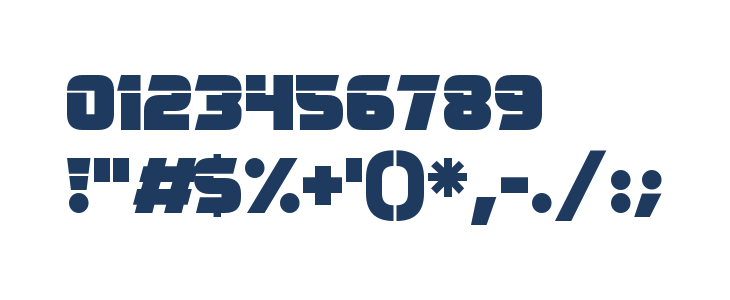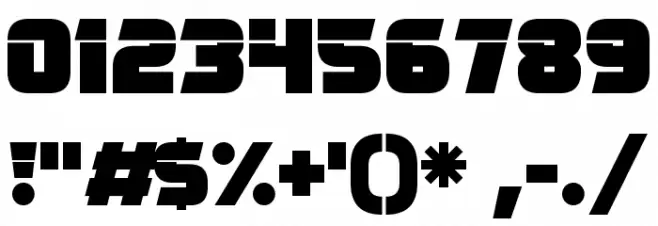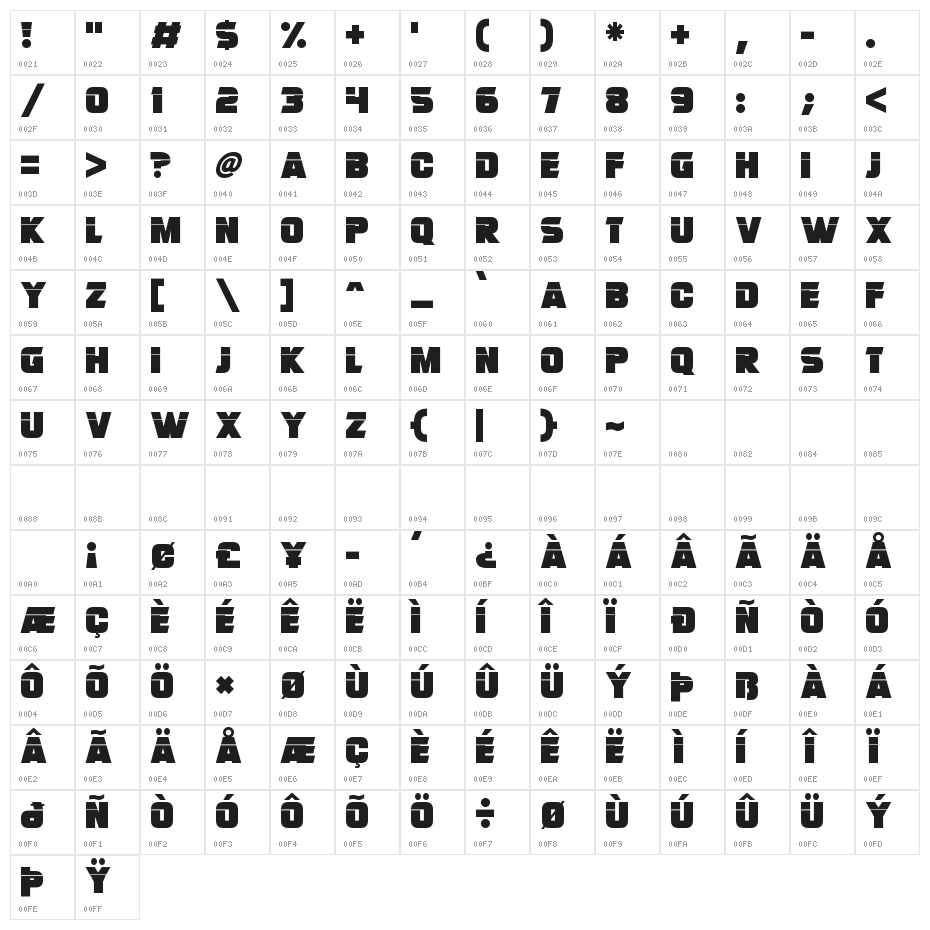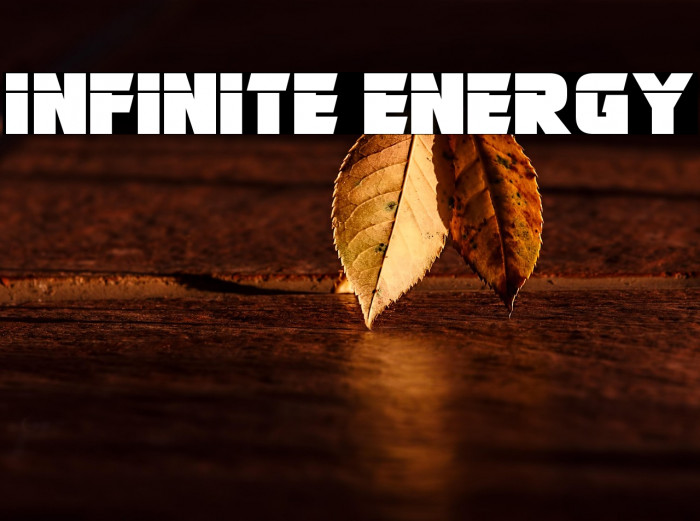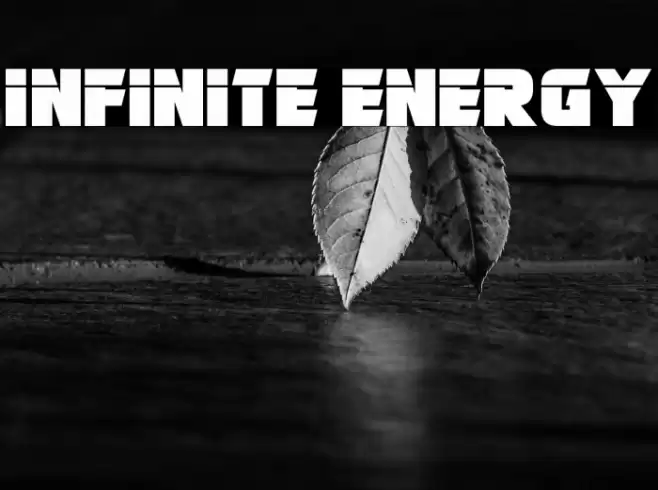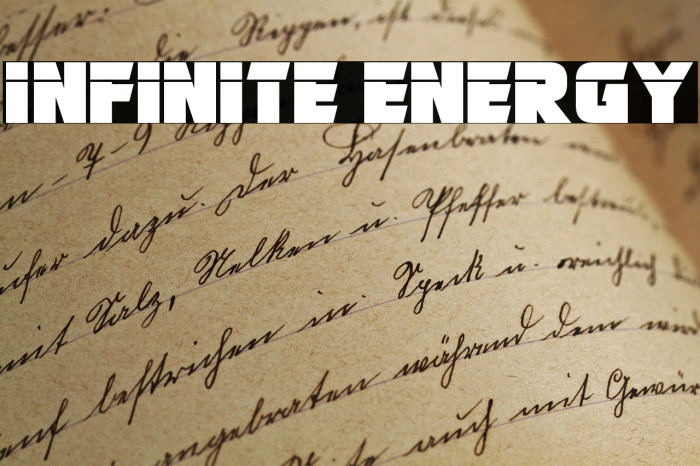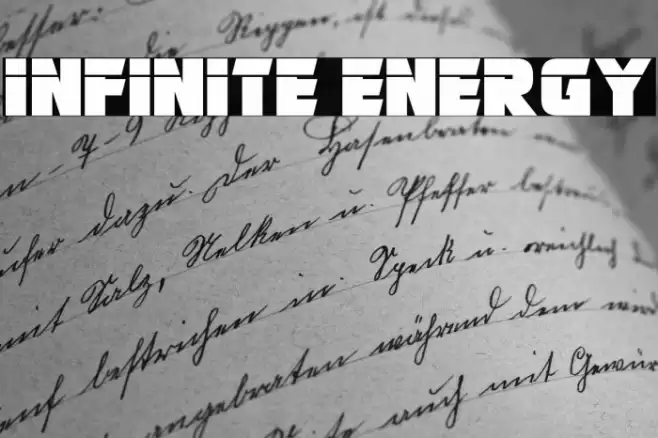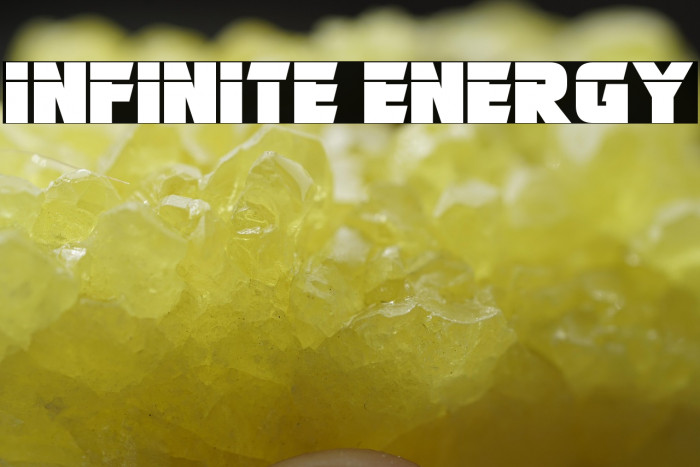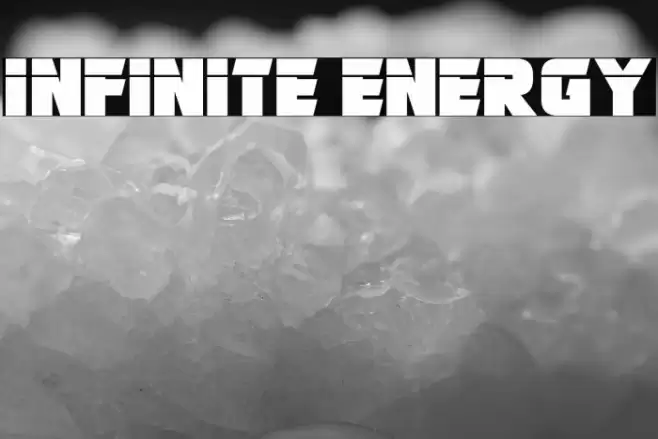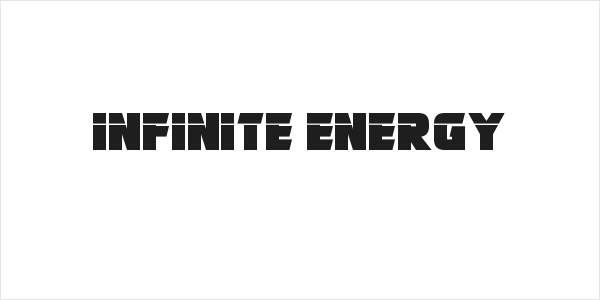
Infinite Energy Font
Infinite Energy Description
This font features a bold and impactful design with a futuristic and geometric aesthetic. The characters are constructed with sharp angles and thick strokes, creating a sense of strength and modernity. The uppercase letters are particularly striking, with a uniform height and width that contribute to a cohesive appearance. The numbers and special characters maintain the same boldness, ensuring consistency across all elements. This font is ideal for projects that require a strong visual presence and a modern touch.
| Proposed Projects | Ideal for branding, posters, headlines, and any design requiring a strong, modern impact. |